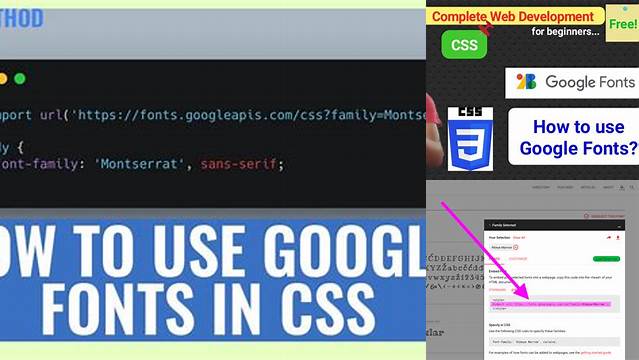
Google Fonts: Easy CSS Font Changes For Your Site
Hey everyone! Today, we're diving into a super cool topic: how to change fonts in CSS using Google Fonts. If you're anything like me, you're always looking for ways to spice up your website and make it look amazing. One of the easiest ways to do that is by playing around with fonts. And guess what? Google Fonts makes it incredibly simple to do just that. We'll walk through everything, from picking your perfect font to adding it to your website. Get ready to transform your site's look with just a few lines of code!
What are Google Fonts?
So, what exactly are Google Fonts? Well, they're a massive, free library of fonts that you can use on your website. Seriously, it's like a candy store for web designers. Google Fonts offers a wide range of fonts, from classic serifs and sans-serifs to more modern and unique styles. The best part? They're all open-source, which means you can use them for free, even for commercial projects. No catch, no hidden fees. How awesome is that? Google Fonts is hosted by Google, so you know the fonts are reliable and load quickly. This is a huge plus for your website's performance and user experience. You don't want your visitors waiting forever for your website to load just because of a slow-loading font. By using Google Fonts, you're not only getting access to a fantastic selection of fonts but also ensuring that your website looks great and runs smoothly for everyone. This is also a great way to stay consistent in terms of styling. It's like having a design assistant right at your fingertips, ready to help you make your website shine. Google Fonts is really a must-have for any web developer. You can easily customize the fonts to fit the overall design of your website. You can also make your website responsive to different devices, ensuring that it looks great on any screen size. So, whether you're a seasoned web developer or just starting out, Google Fonts is an invaluable resource that can help you create a website that looks and performs its best.
Choosing Your Fonts
Alright, let's talk about the fun part: choosing your fonts! This is where you get to unleash your inner designer and pick the perfect fonts to match your website's vibe. Here's the deal: head over to the Google Fonts website. You can search for fonts by name, or you can browse through the different categories, like serif, sans-serif, display, handwriting, and monospace. Each category has its own unique style and character. Choosing the right fonts is really important. Consider the overall style of your website. Are you going for a formal, classic look? Then maybe a serif font like 'Playfair Display' or 'Lora' would be a good fit. Or perhaps you want something modern and clean? A sans-serif font like 'Roboto' or 'Open Sans' might be your go-to choice.
Think about readability. You want your website to be easy to read, right? So, choose fonts that are clear and legible, especially for the body text. Avoid fonts that are too fancy or ornate, as they can be difficult to read at smaller sizes. A good rule of thumb is to pair a serif font for headings with a sans-serif font for body text. This can create a nice visual contrast and make your website more appealing. Think about the mood or personality you want to convey. Different fonts evoke different emotions. A playful, handwritten font might be perfect for a children's website, while a sleek, modern font might be better for a tech company. Don't be afraid to experiment and try out different font combinations until you find something that feels right.
Remember, you can also filter fonts based on their characteristics, like weight, style, and language. This will help you narrow down your choices and find the perfect fonts for your website. Also, you can compare fonts side by side on the Google Fonts website. You can also test them out in a live preview with your own text. This is a great way to see how the fonts will look on your website before you make a final decision. So, take your time, have fun, and find the fonts that speak to you. Your website will thank you for it!
Adding Google Fonts to Your Website
Okay, you've picked your fonts, and now it's time to add them to your website. There are a couple of ways to do this, and I'll walk you through both of them. First up, the easiest method: using the link tag in your HTML.
Go to Google Fonts: Find the font you want, and click the plus sign to add it to your selection.
View your selections: Click the icon in the top right corner to view your selected fonts.
Copy the link tag: Google Fonts will provide you with a link tag that you need to include in the
<head>section of your HTML document. It'll look something like this:<link rel="preconnect" href="https://fonts.googleapis.com"> <link rel="preconnect" href="https://fonts.gstatic.com" crossorigin> <link href="https://fonts.googleapis.com/css2?family=Roboto:wght@400;700&display=swap" rel="stylesheet"> -
Paste the link tag: Add this link tag within the
<head>section of your HTML file.
Next up, the import method using CSS.
Go to Google Fonts: Follow steps 1 and 2 from the link tag method.
Copy the import statement: Instead of the link tag, Google Fonts will provide you with an import statement that you can use in your CSS file. It'll look something like this:
@import url('https://fonts.googleapis.com/css2?family=Roboto:wght@400;700&display=swap'); -
Paste the import statement: Add this import statement at the top of your CSS file. It's important that it's at the very top, before any other styles.
Using Your Fonts in CSS
Alright, you've successfully added your Google Fonts to your website. Now it's time to put them to use! Applying the fonts to your website is super easy using the font-family property in your CSS. Here's how it works:
Target the HTML element: Decide which HTML elements you want to apply the font to (e.g.,
<h1>,<p>,<body>). -
Use the
font-familyproperty: In your CSS, use thefont-familyproperty to specify the font name. The font name is the name of the font as it appears on the Google Fonts website. You can also specify multiple fonts as a fallback, in case the primary font is not available. Here's an example:body { font-family: 'Roboto', sans-serif; } h1 { font-family: 'Open Sans', sans-serif; }In this example, the body text will use the 'Roboto' font, and the
<h1>elements will use the 'Open Sans' font. If the browser can't find 'Roboto', it will fall back to a sans-serif font. -
And there you have it! You've learned how to change fonts in CSS using Google Fonts, from choosing the perfect font to adding it to your website and troubleshooting any issues. Google Fonts is a fantastic resource that makes it easy to create visually appealing websites. So go forth, experiment, and have fun creating beautiful websites! Remember, the key is to choose fonts that match your website's style and make it easy for your visitors to read and enjoy your content. With a little practice, you'll be a font expert in no time. Keep playing around with different fonts and combinations. The more you experiment, the better you'll get at choosing fonts and creating websites that look amazing. So get out there and start designing!